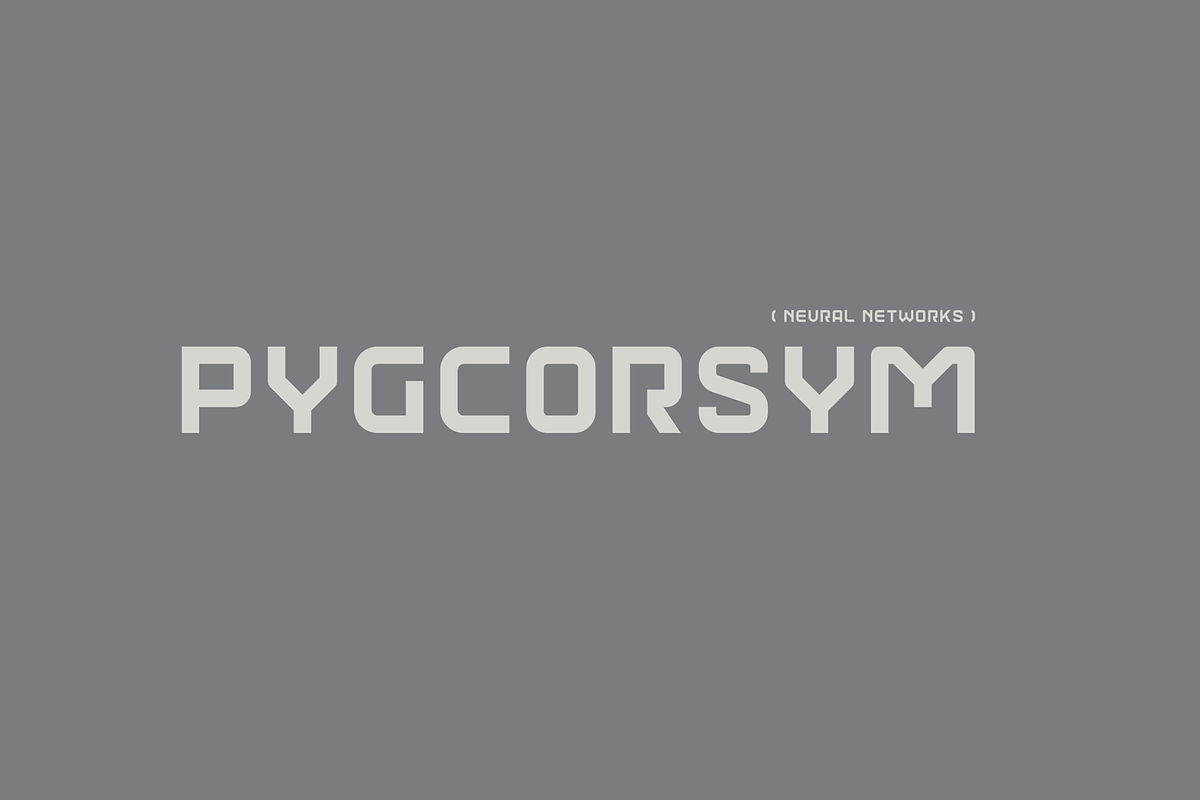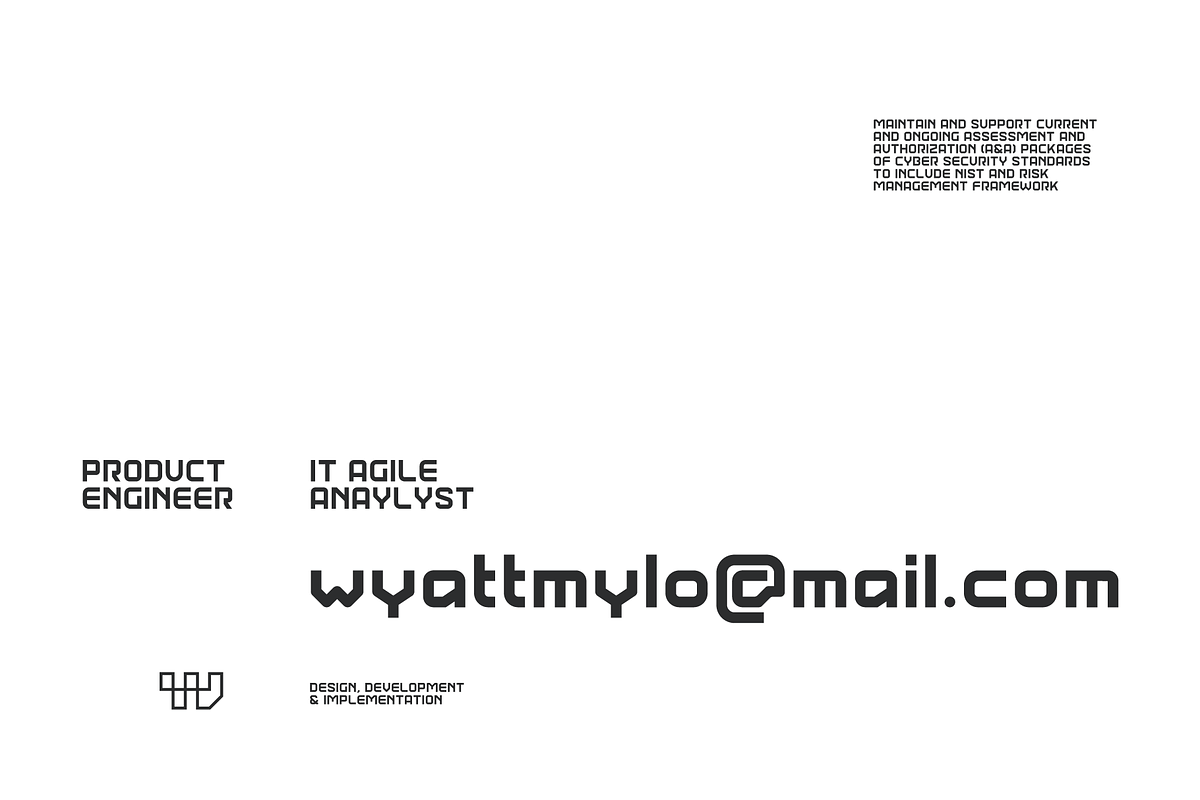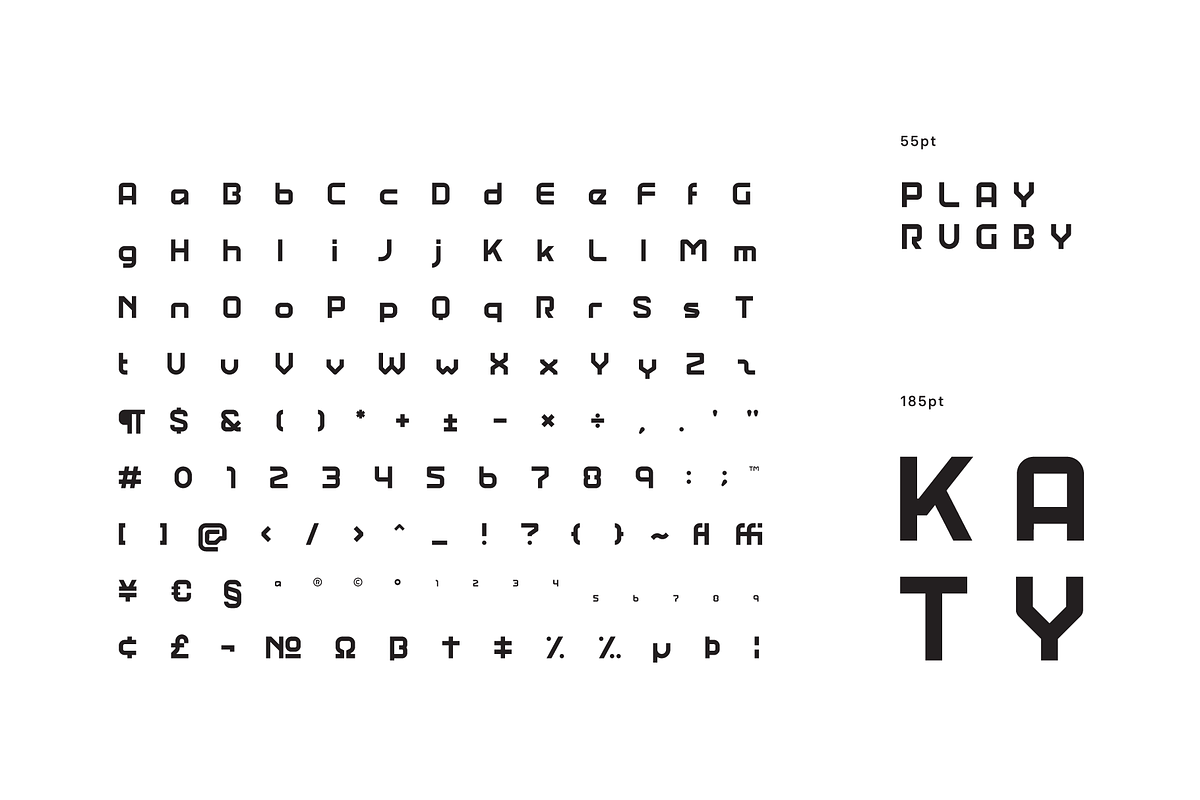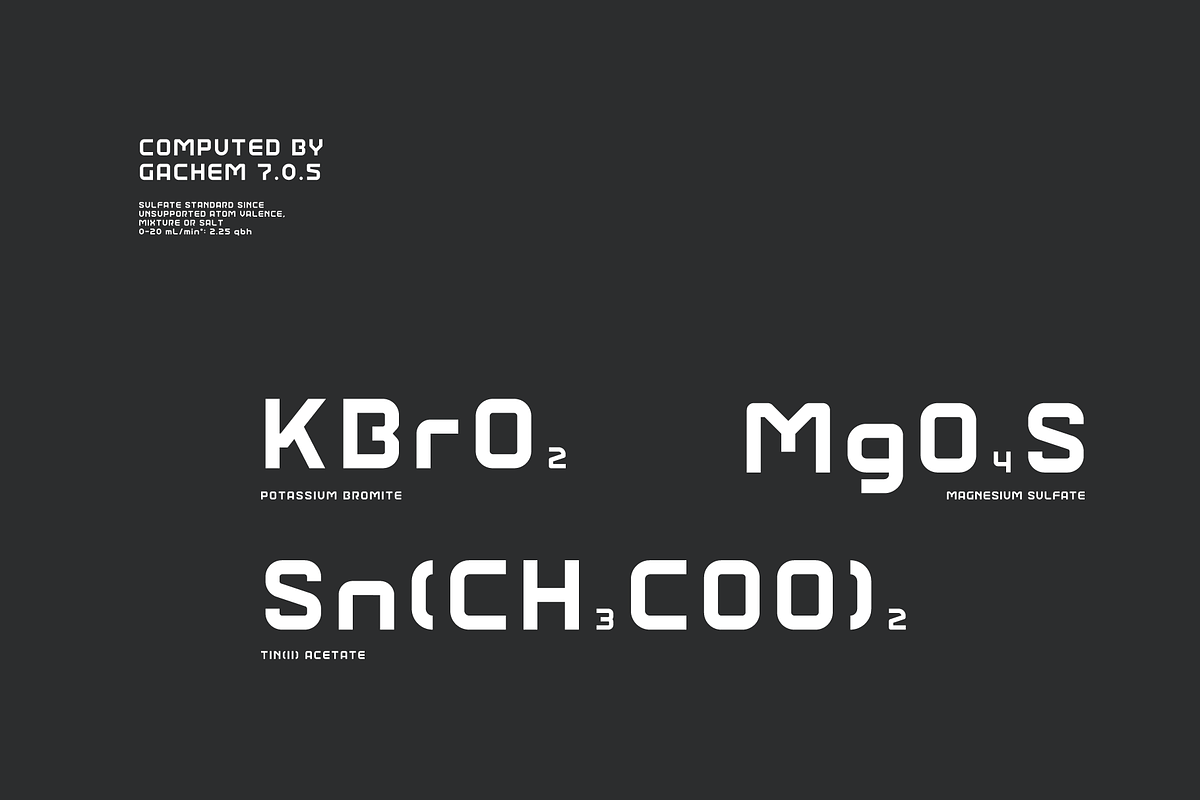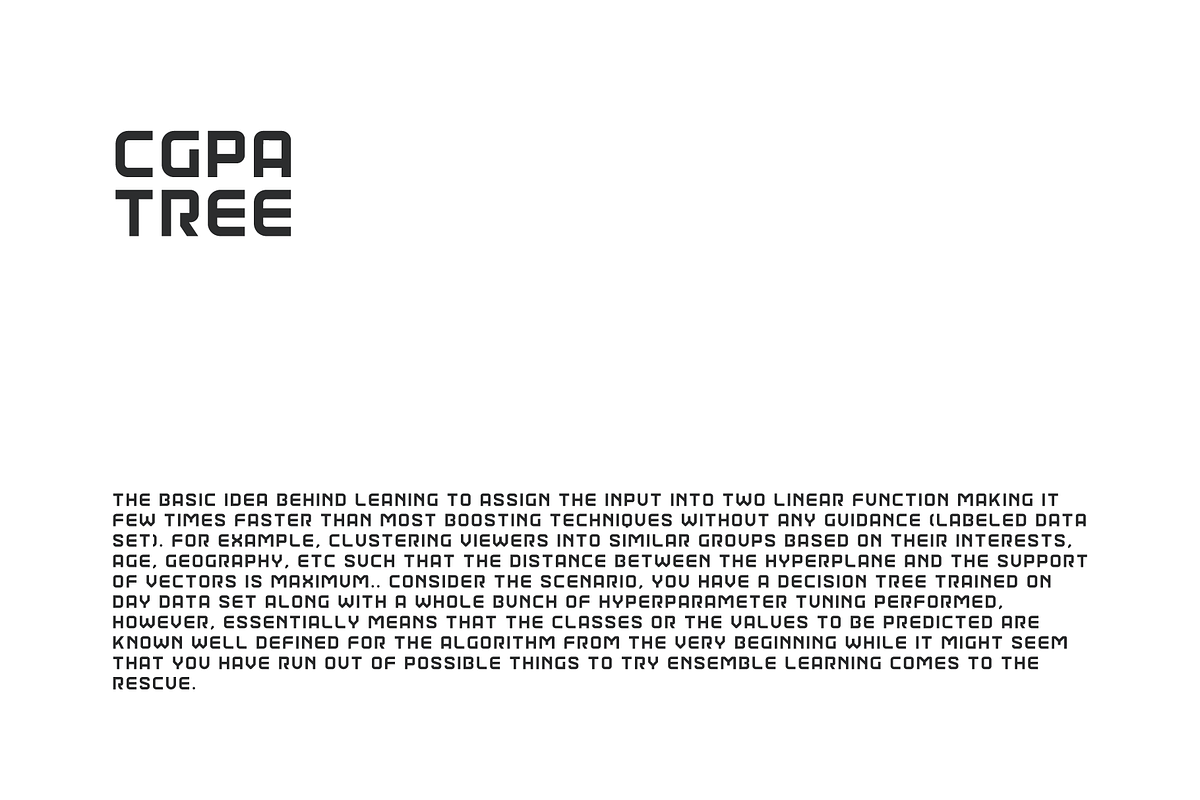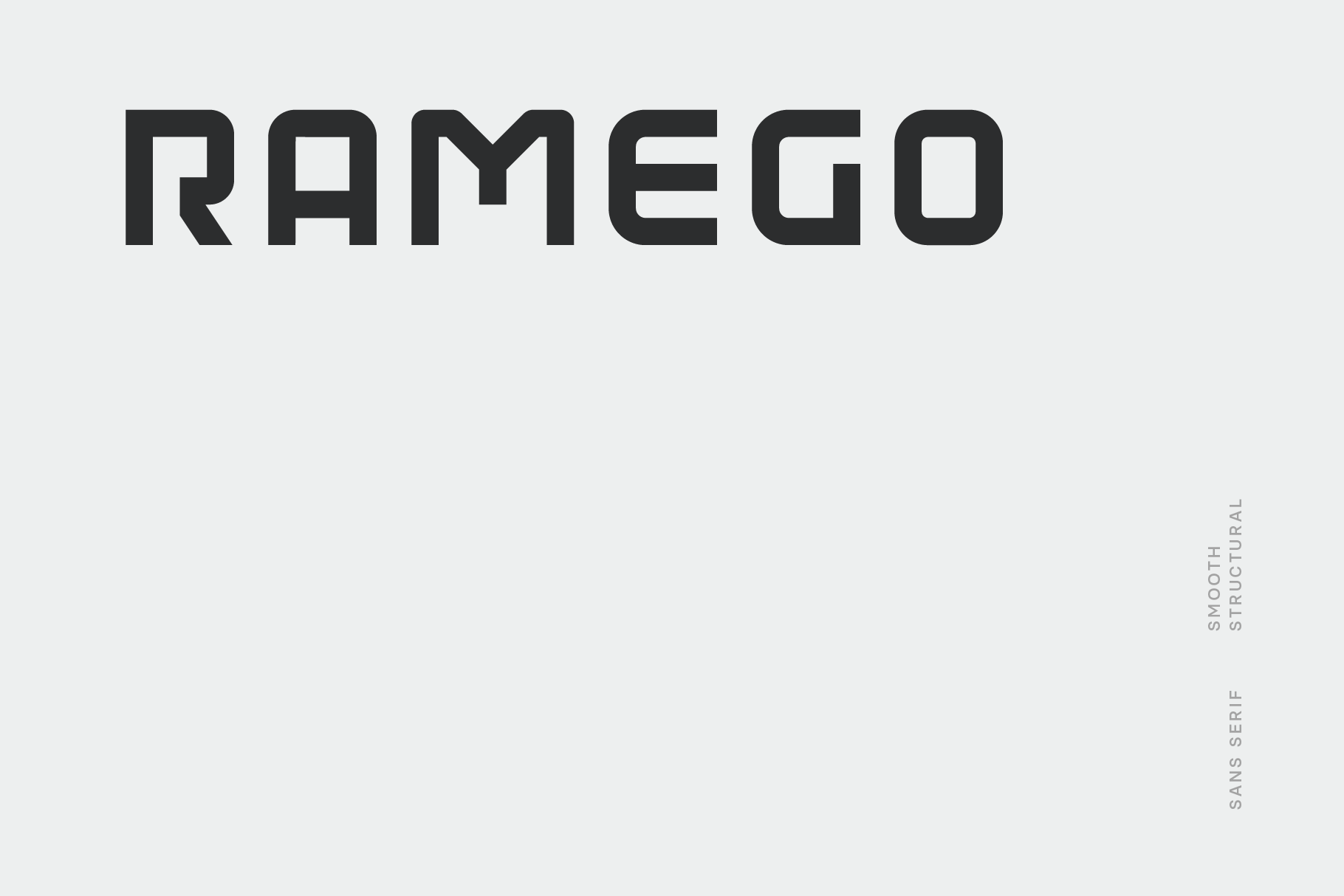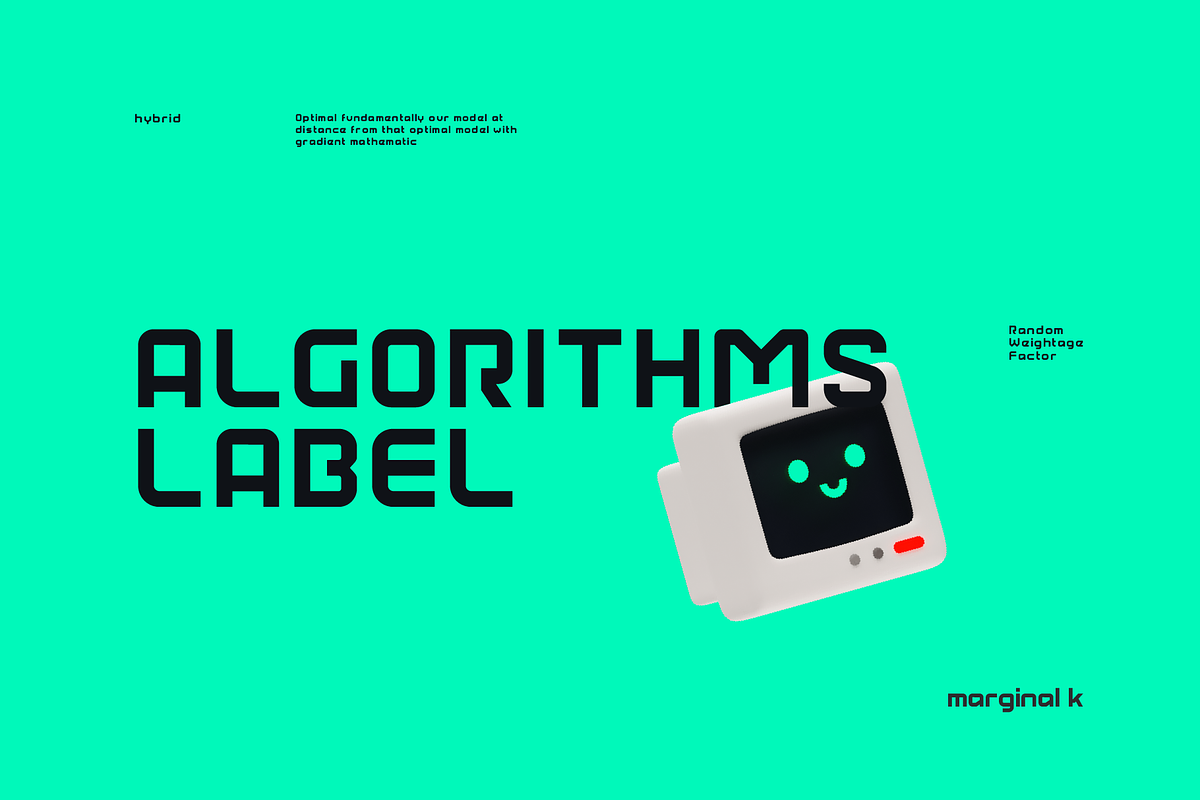
Ramego Font
Ramego is a smooth and structural linear sans apt for headline, editorial, branding, packaging, printed materials and typographic applications. 150+ glyphs with ligatures and fractions provided in opentype .otf and .woff format.